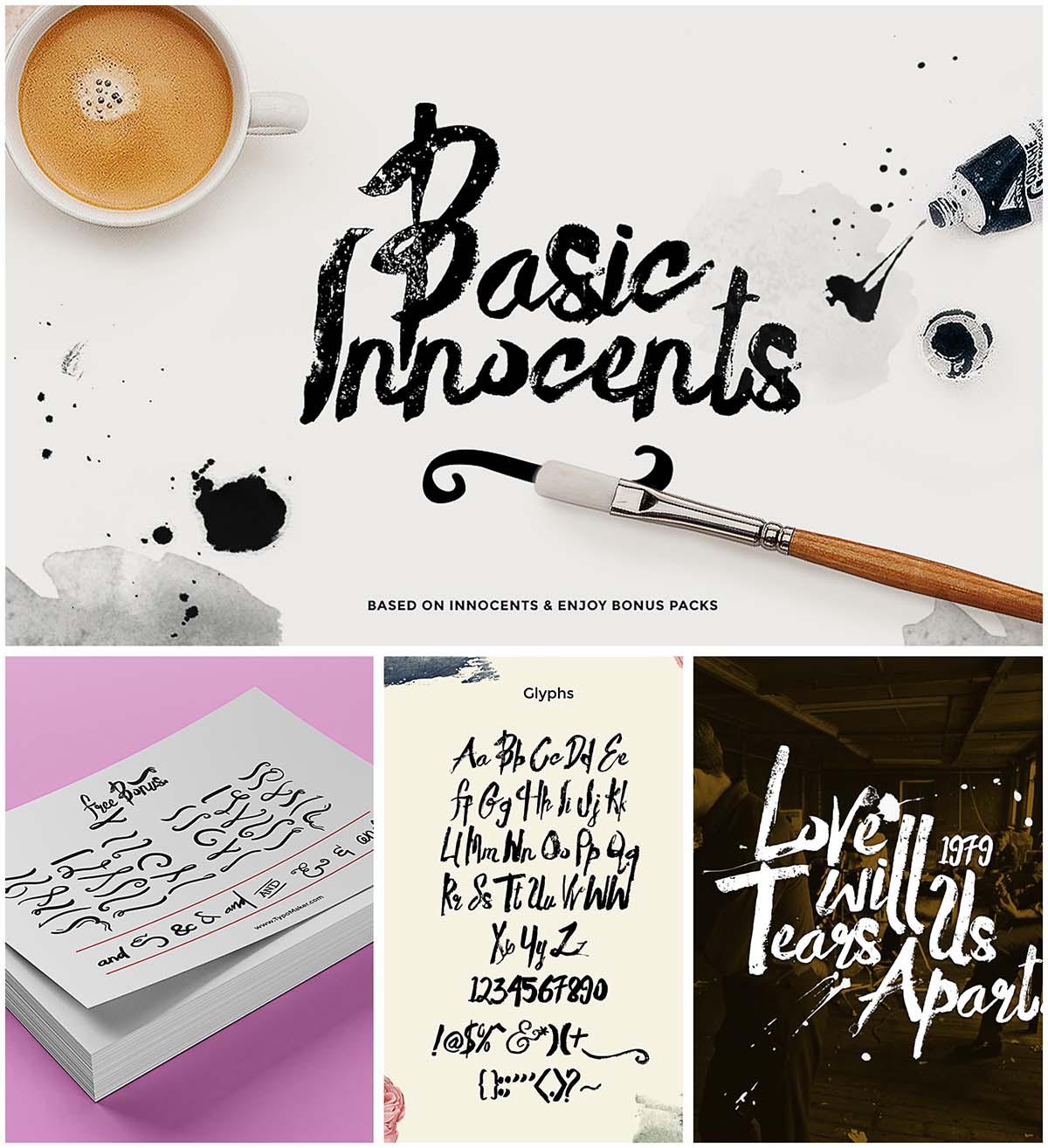
What Are Brush Fonts . One design that i’m drawn to is the brush font. Browse by alphabetical listing, by style, by author or by popularity. This font design has an artistic element that stands out no matter how simple or complex the font’s design. The best free brush fonts can be a great way to give creative projects a unique handcrafted look without breaking the bank and whether it's for print or digital use. Unleash your creativity with our collection of free brush fonts. Ideal for adding an artistic touch to any design project. 1001 free fonts offers a huge. Brush fonts are a type of typeface that replicates the look of calligraphy created with a paintbrush or marker. Archive of freely downloadable fonts.
Archive of freely downloadable fonts. One design that i’m drawn to is the brush font. 1001 free fonts offers a huge. This font design has an artistic element that stands out no matter how simple or complex the font’s design. Ideal for adding an artistic touch to any design project. Browse by alphabetical listing, by style, by author or by popularity. The best free brush fonts can be a great way to give creative projects a unique handcrafted look without breaking the bank and whether it's for print or digital use. Brush fonts are a type of typeface that replicates the look of calligraphy created with a paintbrush or marker. Unleash your creativity with our collection of free brush fonts.
Brush Font SVG Alphabet Svg Brush Clipart Paint Brush Font Etsy Canada
What Are Brush Fonts 1001 free fonts offers a huge. Ideal for adding an artistic touch to any design project. One design that i’m drawn to is the brush font. This font design has an artistic element that stands out no matter how simple or complex the font’s design. 1001 free fonts offers a huge. The best free brush fonts can be a great way to give creative projects a unique handcrafted look without breaking the bank and whether it's for print or digital use. Archive of freely downloadable fonts. Brush fonts are a type of typeface that replicates the look of calligraphy created with a paintbrush or marker. Unleash your creativity with our collection of free brush fonts. Browse by alphabetical listing, by style, by author or by popularity.
Never Brush Font Brush font, Free fonts for designers, Best free fonts What Are Brush Fonts This font design has an artistic element that stands out no matter how simple or complex the font’s design. Unleash your creativity with our collection of free brush fonts. The best free brush fonts can be a great way to give creative projects a unique handcrafted look without breaking the bank and whether it's for print or digital use. 1001. What Are Brush Fonts.
Brush Pen Calligraphy Font Download Fonts Free What Are Brush Fonts Browse by alphabetical listing, by style, by author or by popularity. 1001 free fonts offers a huge. One design that i’m drawn to is the brush font. Ideal for adding an artistic touch to any design project. The best free brush fonts can be a great way to give creative projects a unique handcrafted look without breaking the bank and. What Are Brush Fonts.
Break Brush Font Free Font What Are Brush Fonts Browse by alphabetical listing, by style, by author or by popularity. Archive of freely downloadable fonts. Ideal for adding an artistic touch to any design project. One design that i’m drawn to is the brush font. Brush fonts are a type of typeface that replicates the look of calligraphy created with a paintbrush or marker. Unleash your creativity with our. What Are Brush Fonts.
Brush Font SVG Alphabet Svg Brush Clipart Paint Brush Font Etsy Canada What Are Brush Fonts This font design has an artistic element that stands out no matter how simple or complex the font’s design. Brush fonts are a type of typeface that replicates the look of calligraphy created with a paintbrush or marker. Unleash your creativity with our collection of free brush fonts. 1001 free fonts offers a huge. Ideal for adding an artistic touch. What Are Brush Fonts.
Free Font Collection 18 Brush Fonts — Journey With Jess Inspiration What Are Brush Fonts Archive of freely downloadable fonts. Unleash your creativity with our collection of free brush fonts. This font design has an artistic element that stands out no matter how simple or complex the font’s design. Ideal for adding an artistic touch to any design project. 1001 free fonts offers a huge. One design that i’m drawn to is the brush font.. What Are Brush Fonts.
Brush Fonts SVG PNG TTF Letters and Numbers Alphabet Svg Etsy What Are Brush Fonts One design that i’m drawn to is the brush font. Brush fonts are a type of typeface that replicates the look of calligraphy created with a paintbrush or marker. Browse by alphabetical listing, by style, by author or by popularity. Unleash your creativity with our collection of free brush fonts. 1001 free fonts offers a huge. Ideal for adding an. What Are Brush Fonts.
Painted Brush Font Dafont Free What Are Brush Fonts Brush fonts are a type of typeface that replicates the look of calligraphy created with a paintbrush or marker. The best free brush fonts can be a great way to give creative projects a unique handcrafted look without breaking the bank and whether it's for print or digital use. This font design has an artistic element that stands out no. What Are Brush Fonts.
Kingston Brush Font Free download What Are Brush Fonts The best free brush fonts can be a great way to give creative projects a unique handcrafted look without breaking the bank and whether it's for print or digital use. This font design has an artistic element that stands out no matter how simple or complex the font’s design. 1001 free fonts offers a huge. Browse by alphabetical listing, by. What Are Brush Fonts.
Modern Brush Font What Are Brush Fonts Unleash your creativity with our collection of free brush fonts. One design that i’m drawn to is the brush font. Browse by alphabetical listing, by style, by author or by popularity. The best free brush fonts can be a great way to give creative projects a unique handcrafted look without breaking the bank and whether it's for print or digital. What Are Brush Fonts.